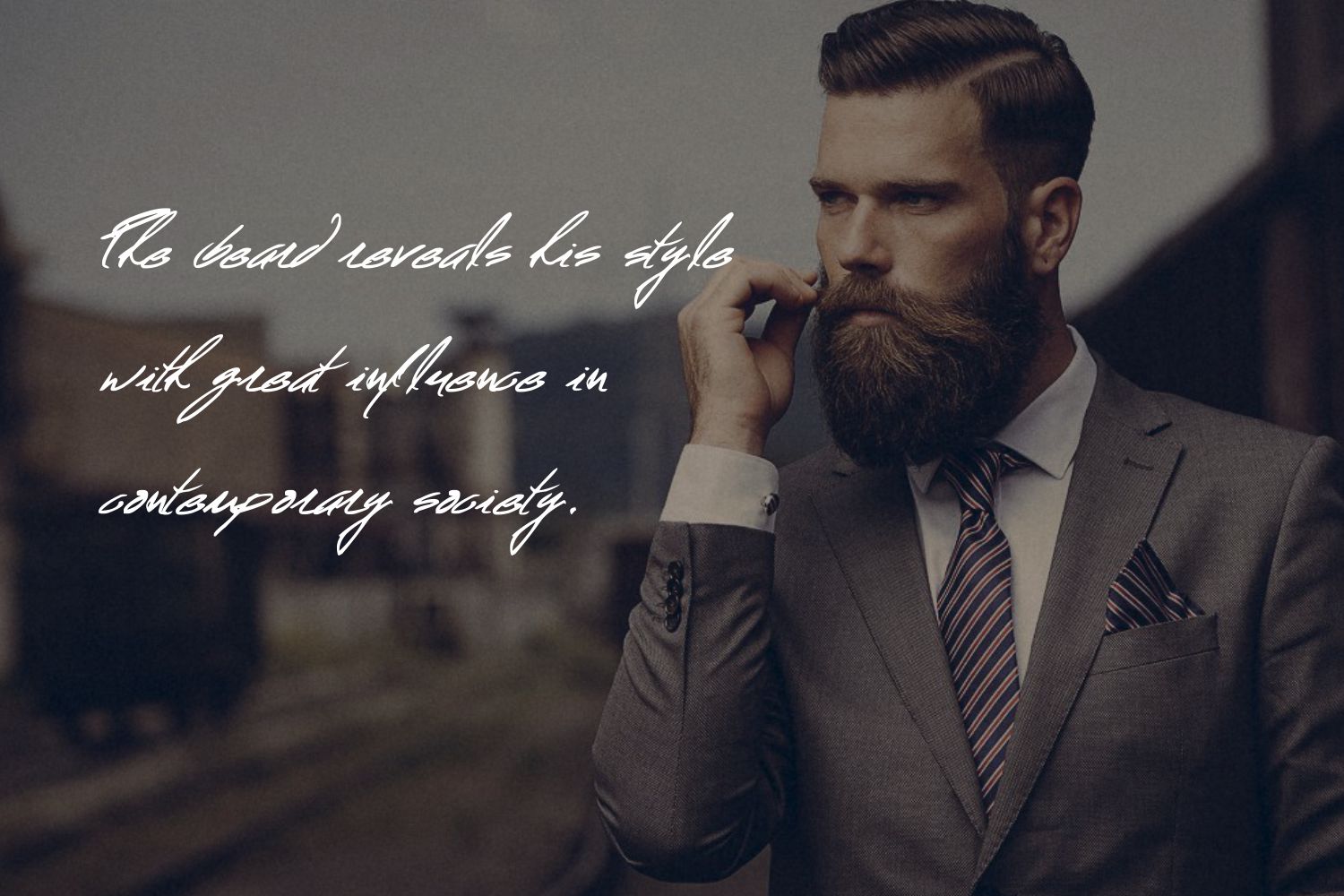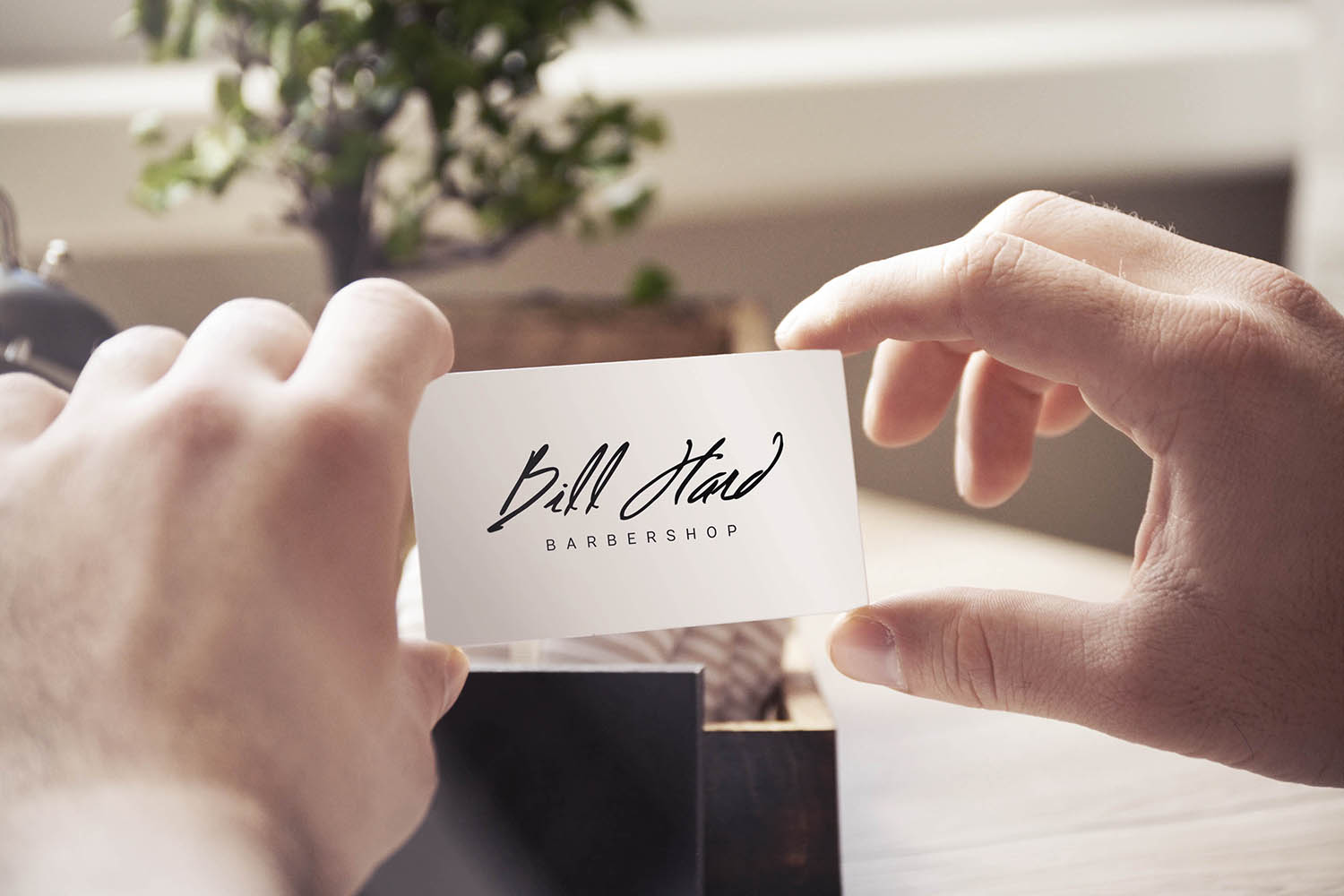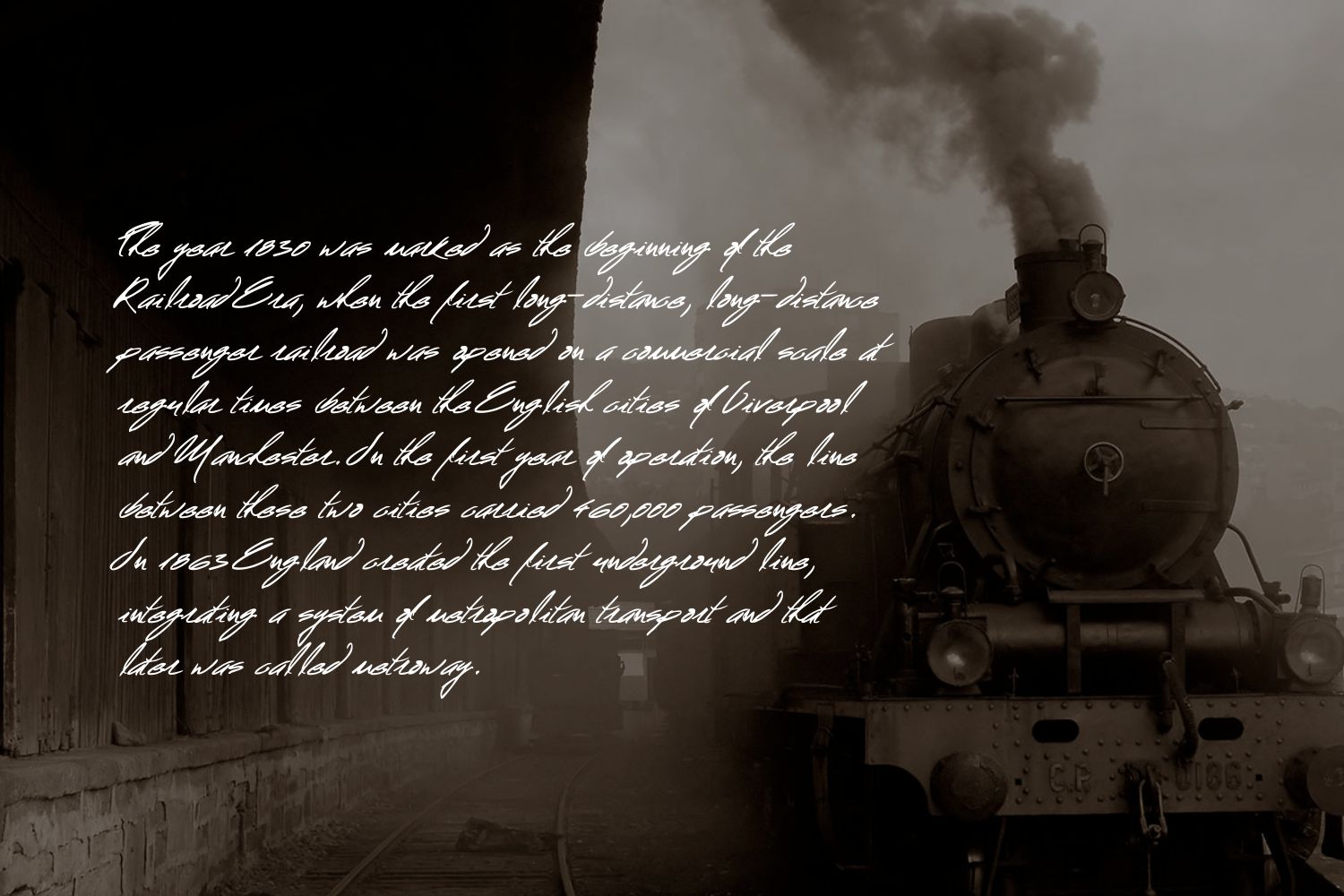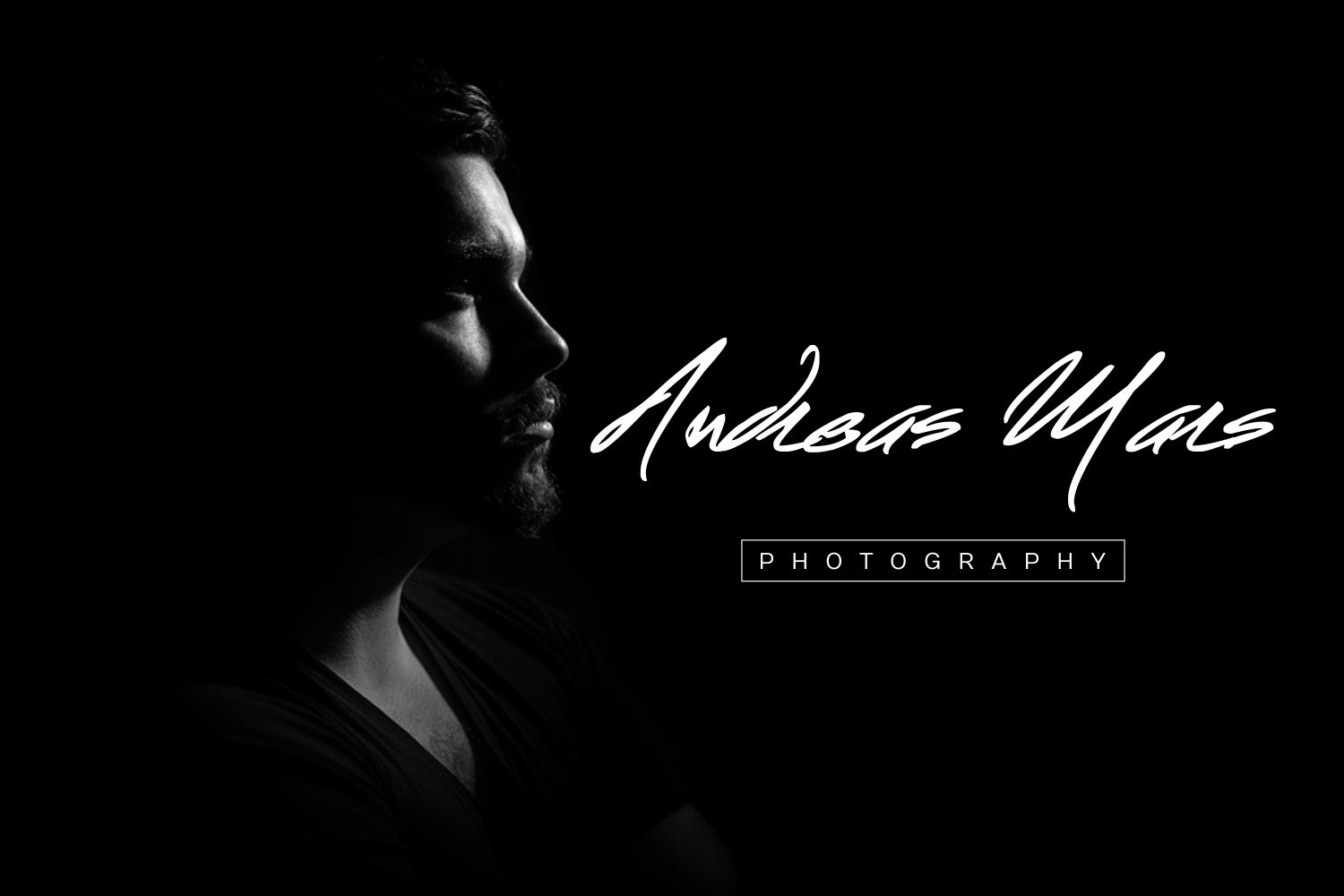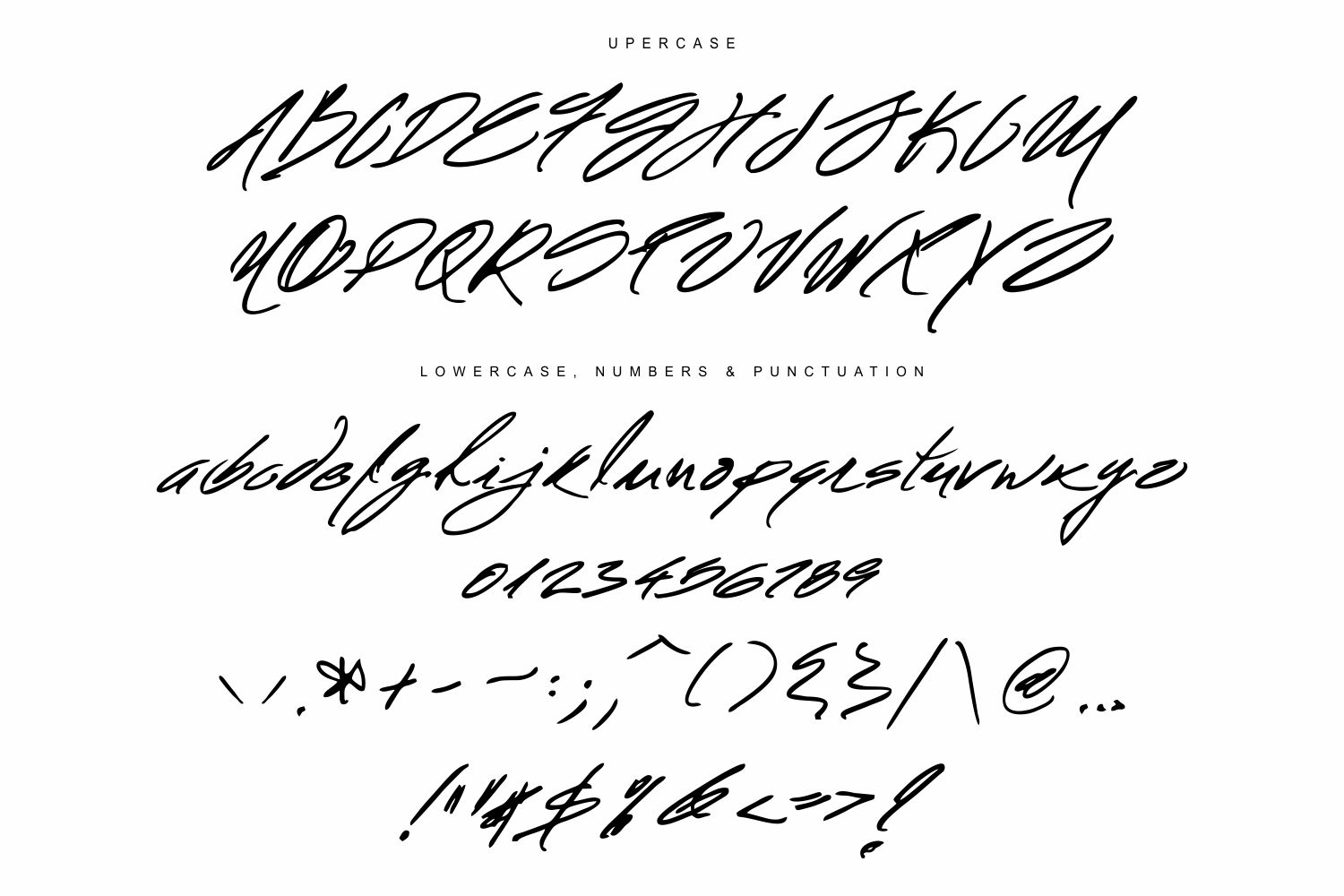
Mr. Roosevelt Font
About Mr. Roosevelt Font
Mr. Roosevelt is a handwritten script with a notable prestige, suitable for signature and display designs. This slanted and freeform style is great for an added touch of personalization.